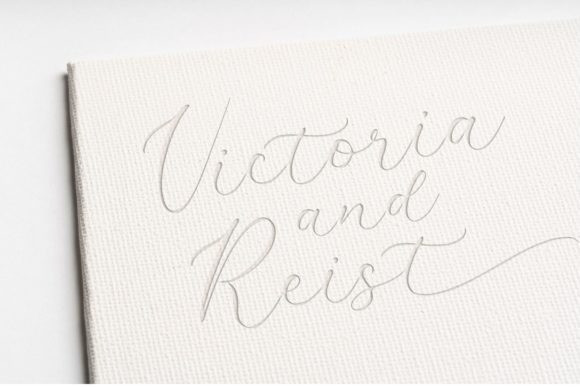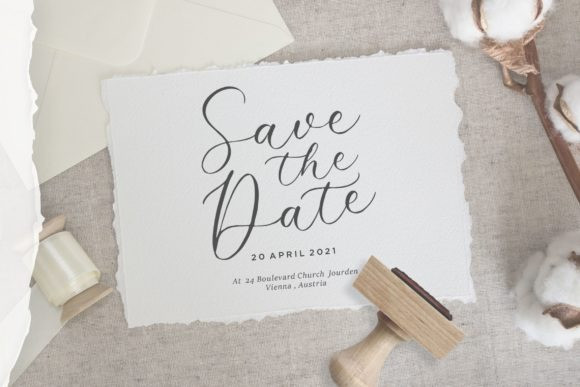
Michelia Script Font
Michelia is a chic, refined script font that emanates sophistication and elegance. Its stylish alternates and ligatures make this font the perfect match for any project.